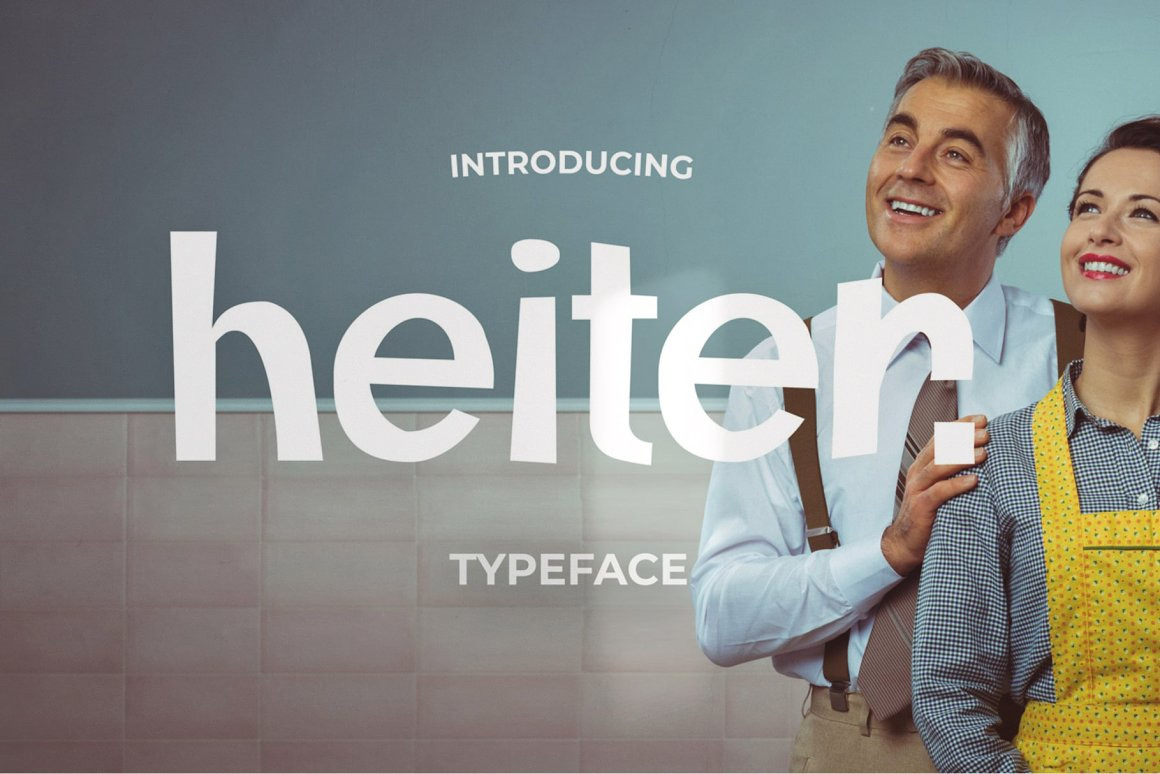
Heiter Retro Typeface
Heiter Retro Typeface is a bold, playful, and nostalgic font inspired by mid-century retro design. With its quirky curves and lively personality, Heiter is perfect for projects that need a fun and vintage vibe. Whether you’re working on posters, logos, packaging, or social media graphics, Heiter adds a unique touch of retro charm.
Its bold, eye-catching style makes it ideal for statement pieces and designs that need to stand out with a vintage flair.
Heiter’s retro style brings energy and personality to your designs, making it the perfect choice for creative projects that require a bold, throwback feel.